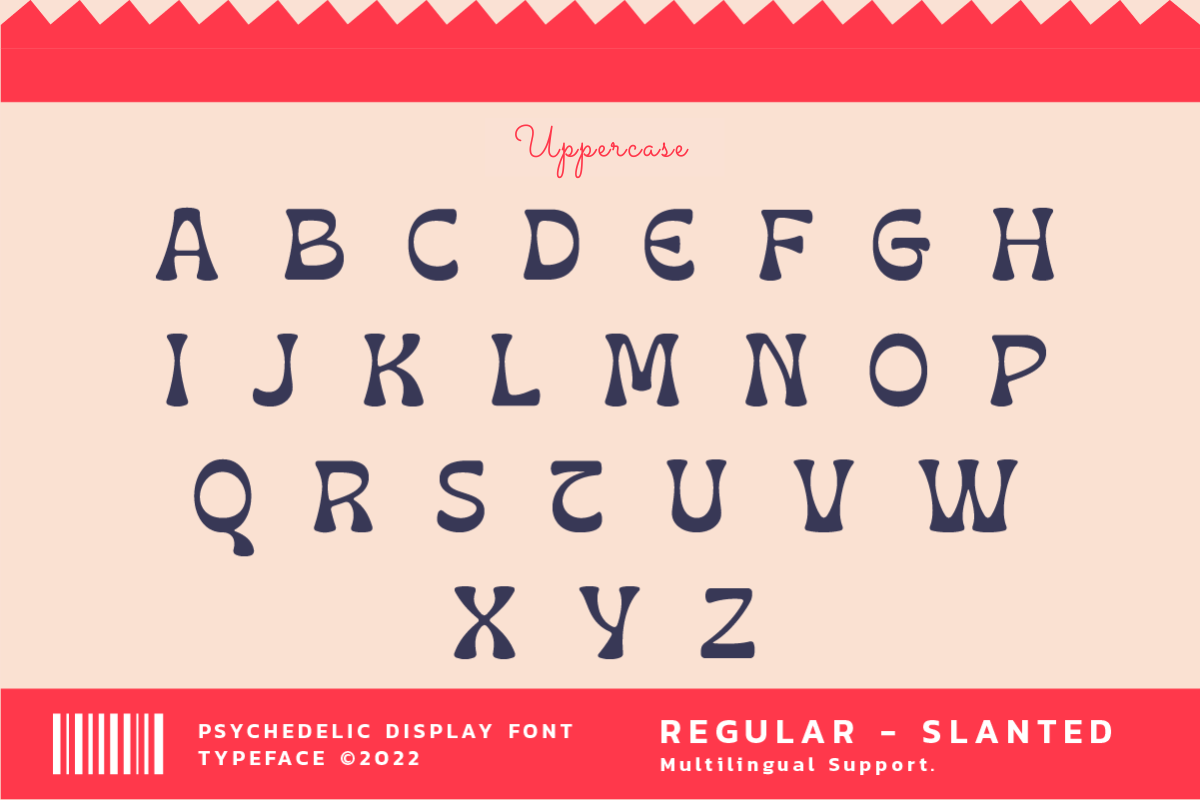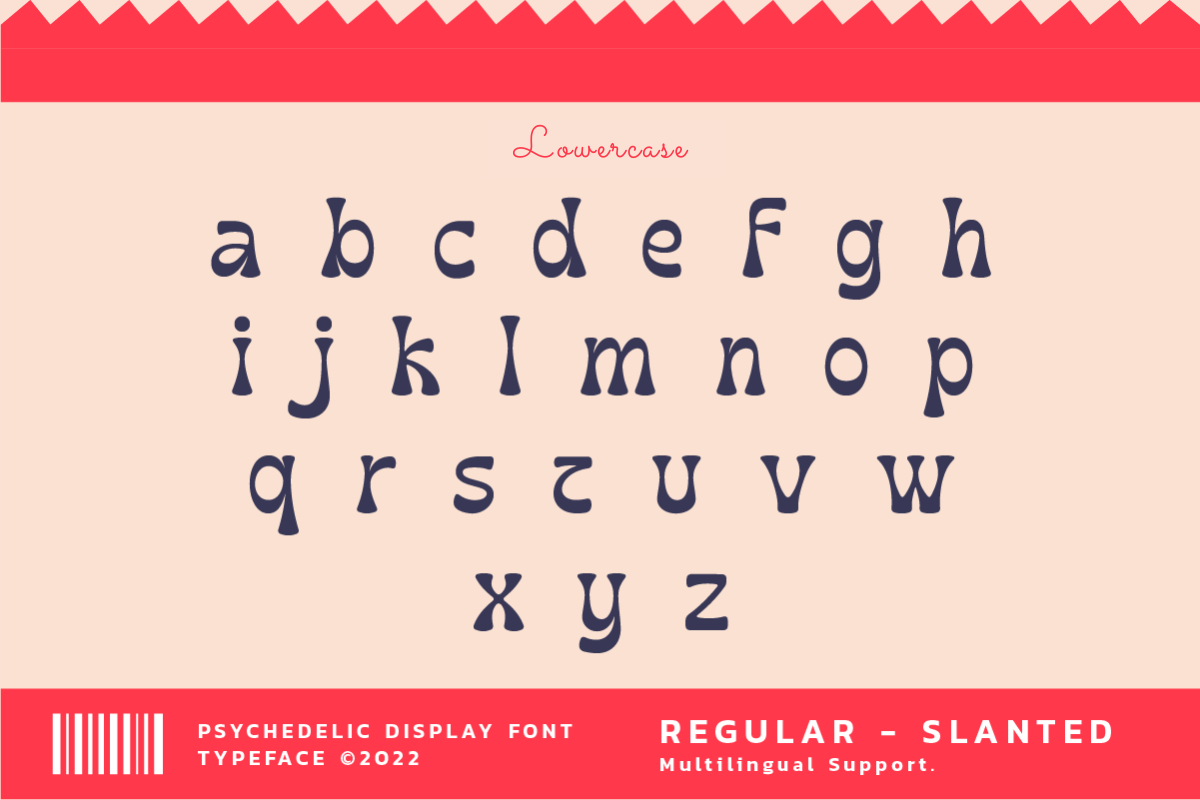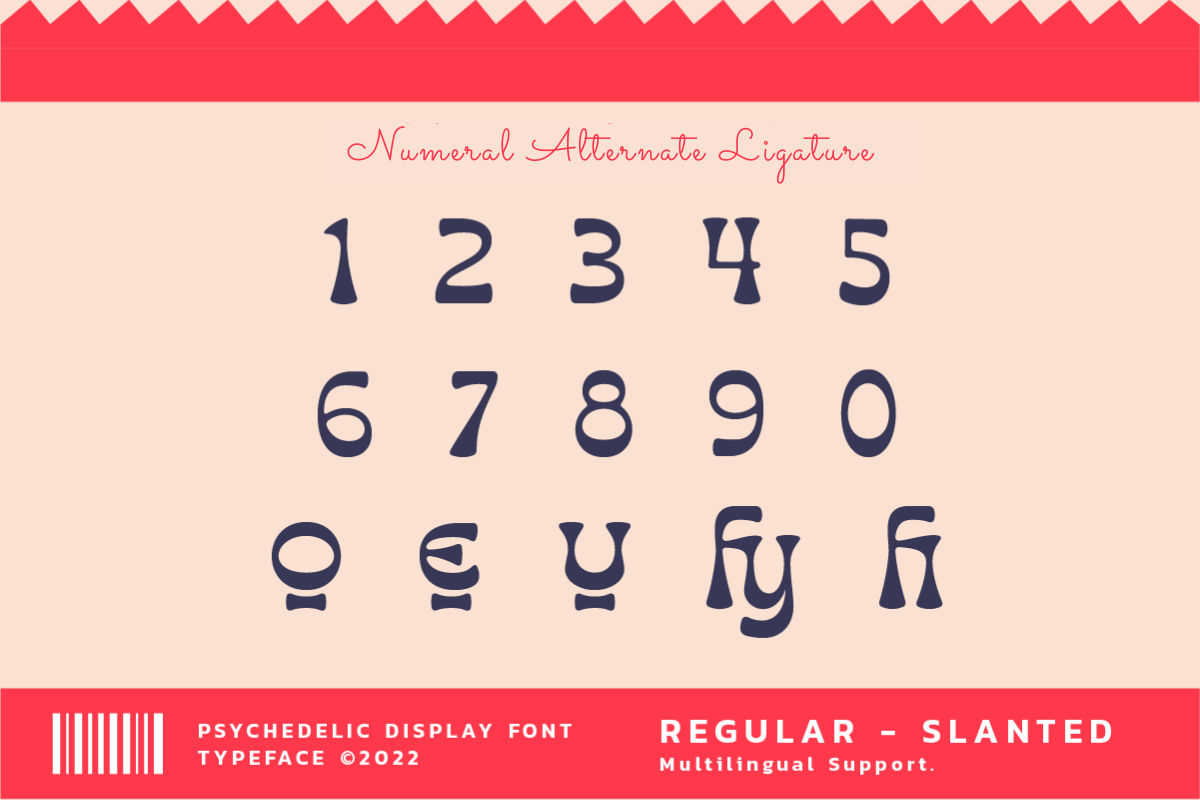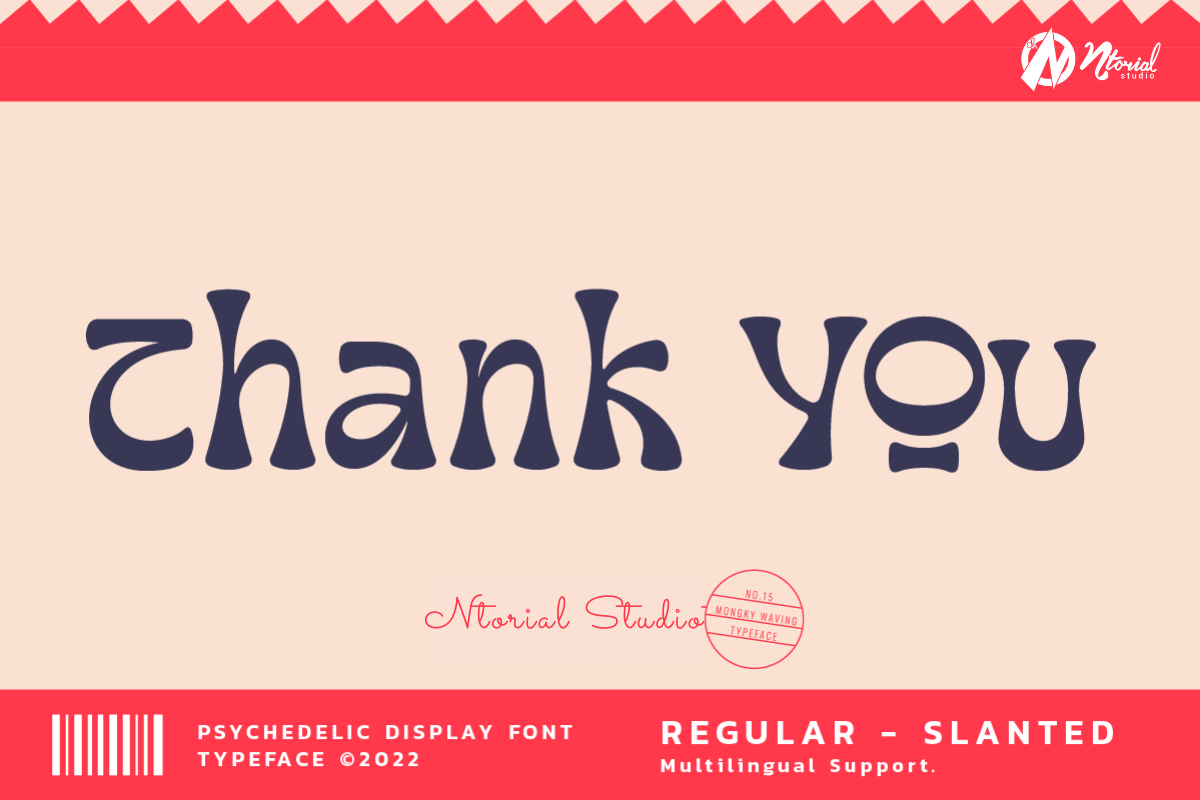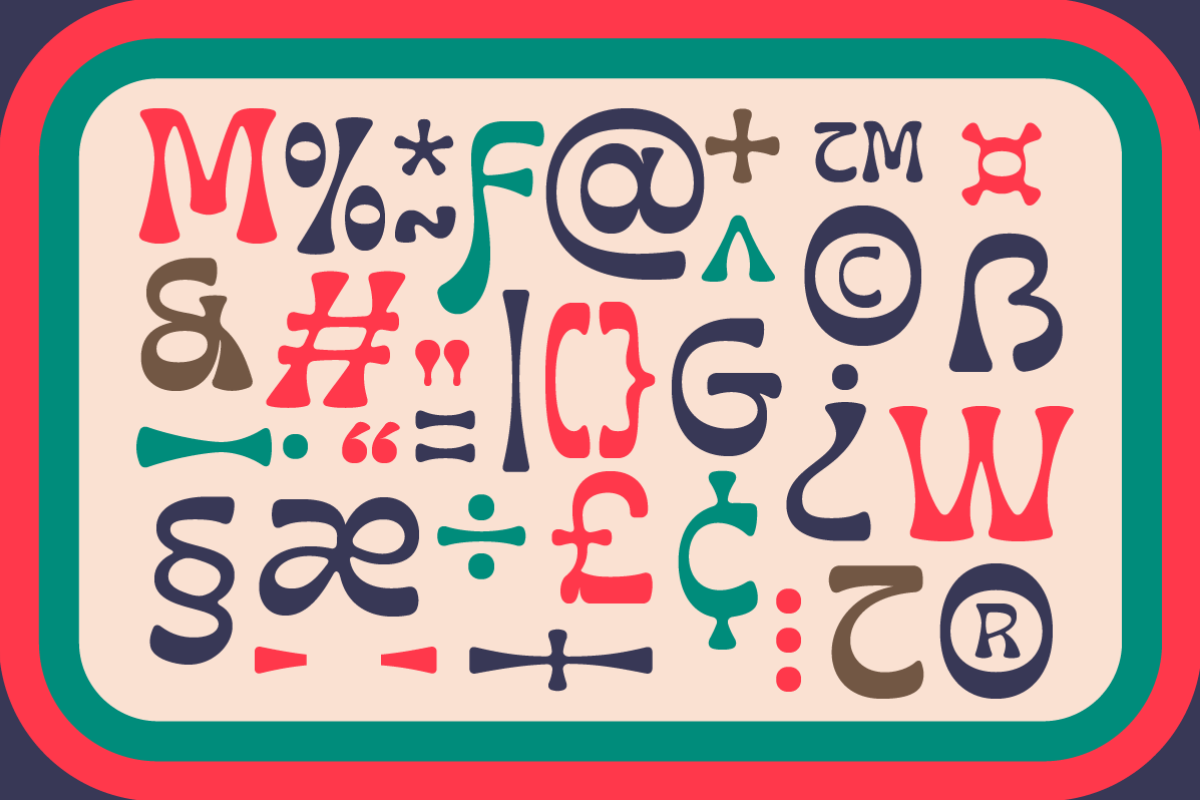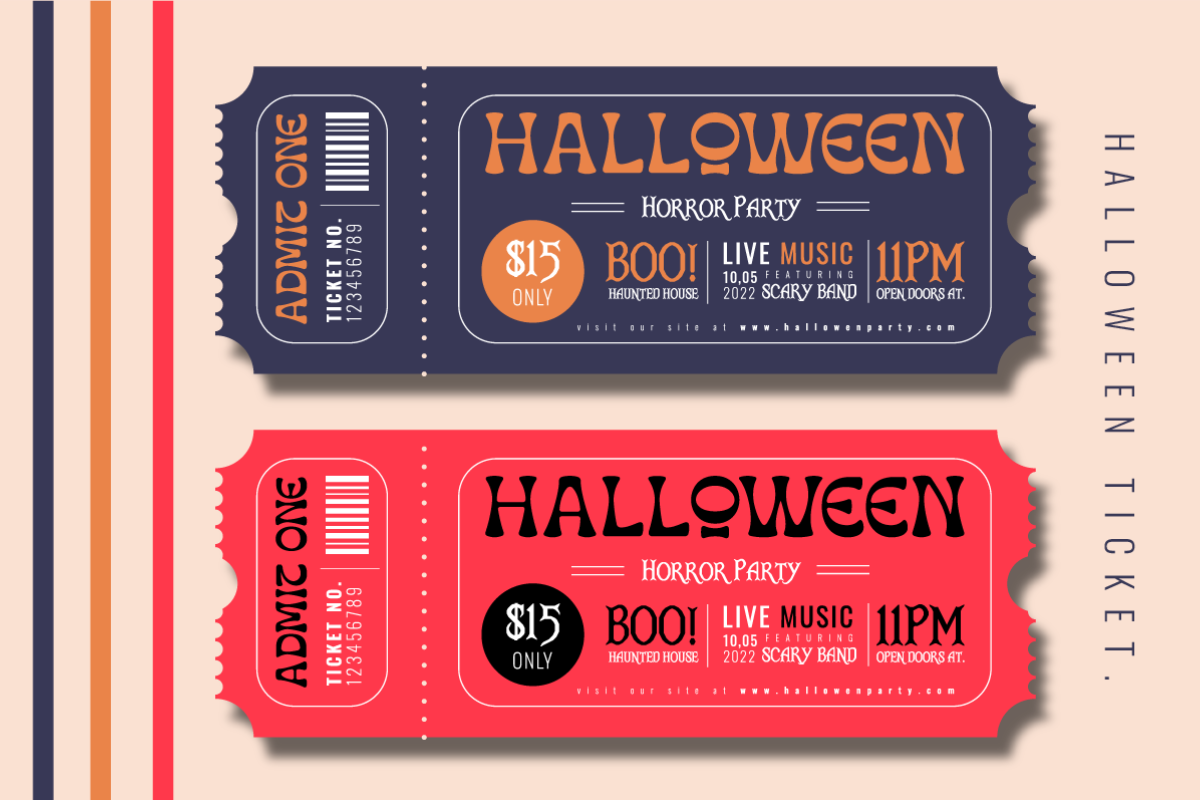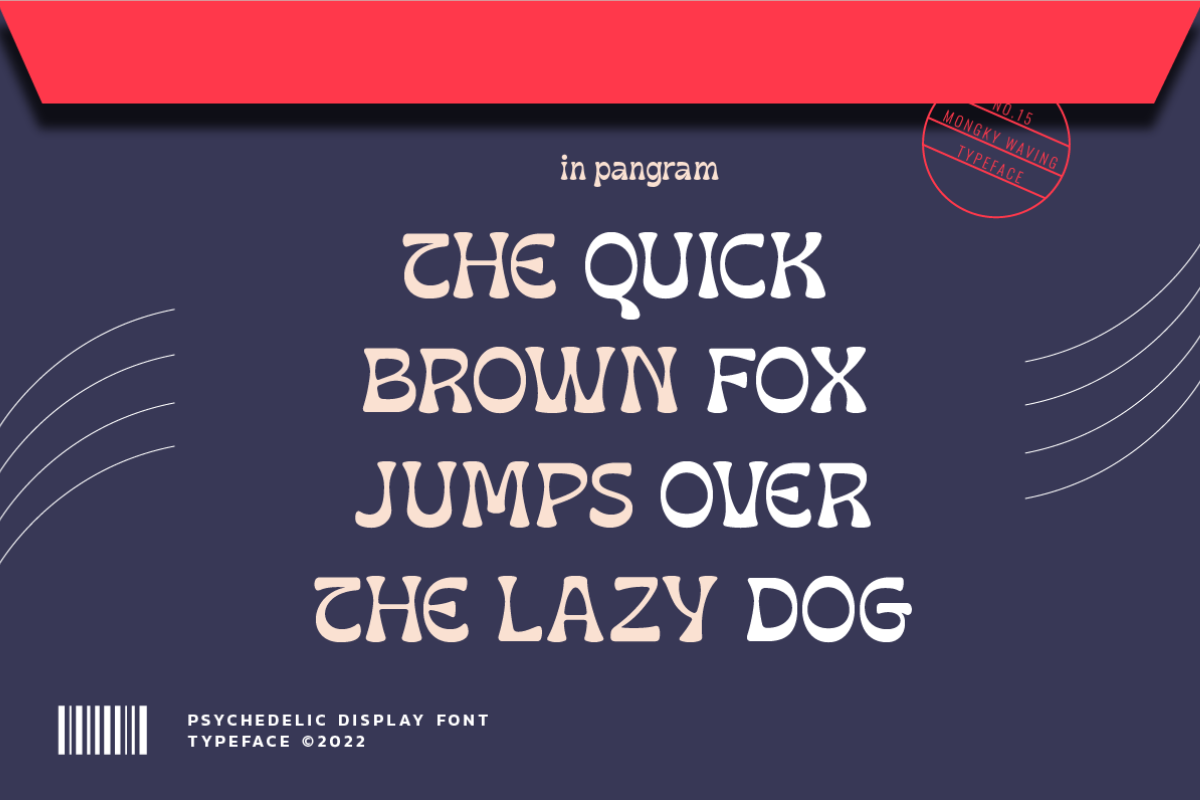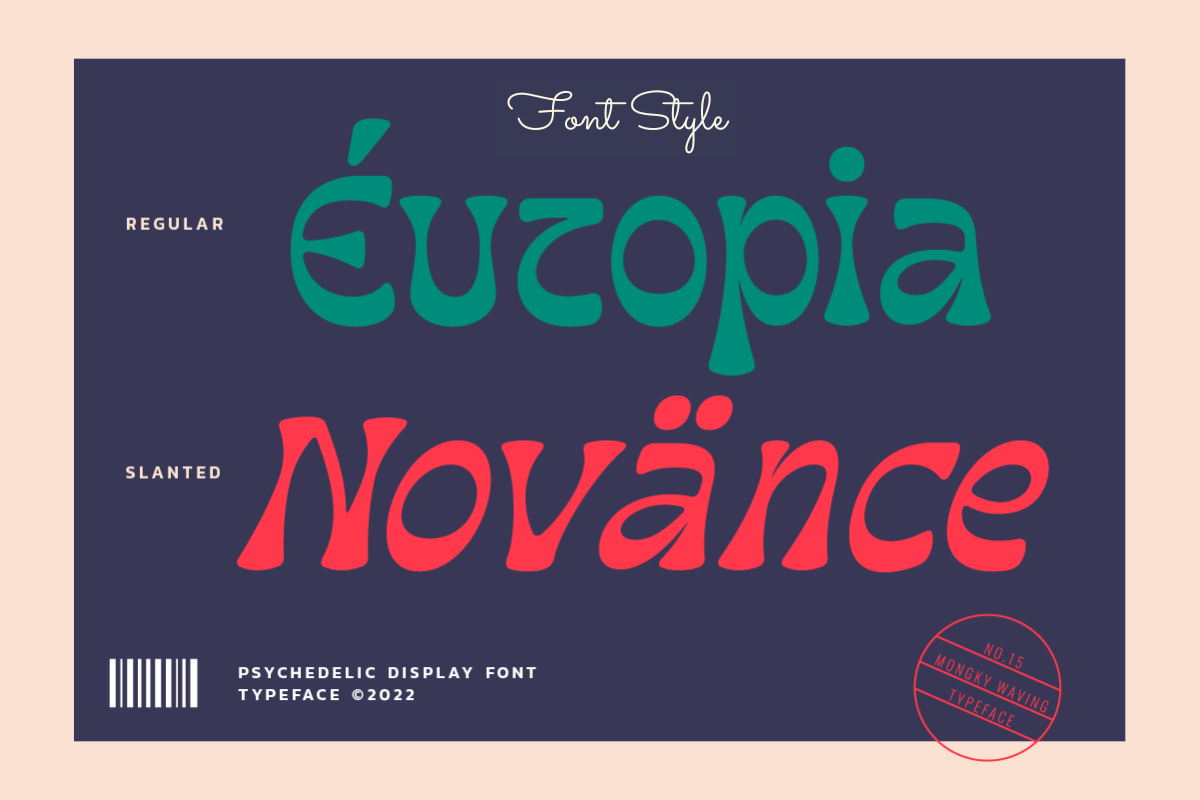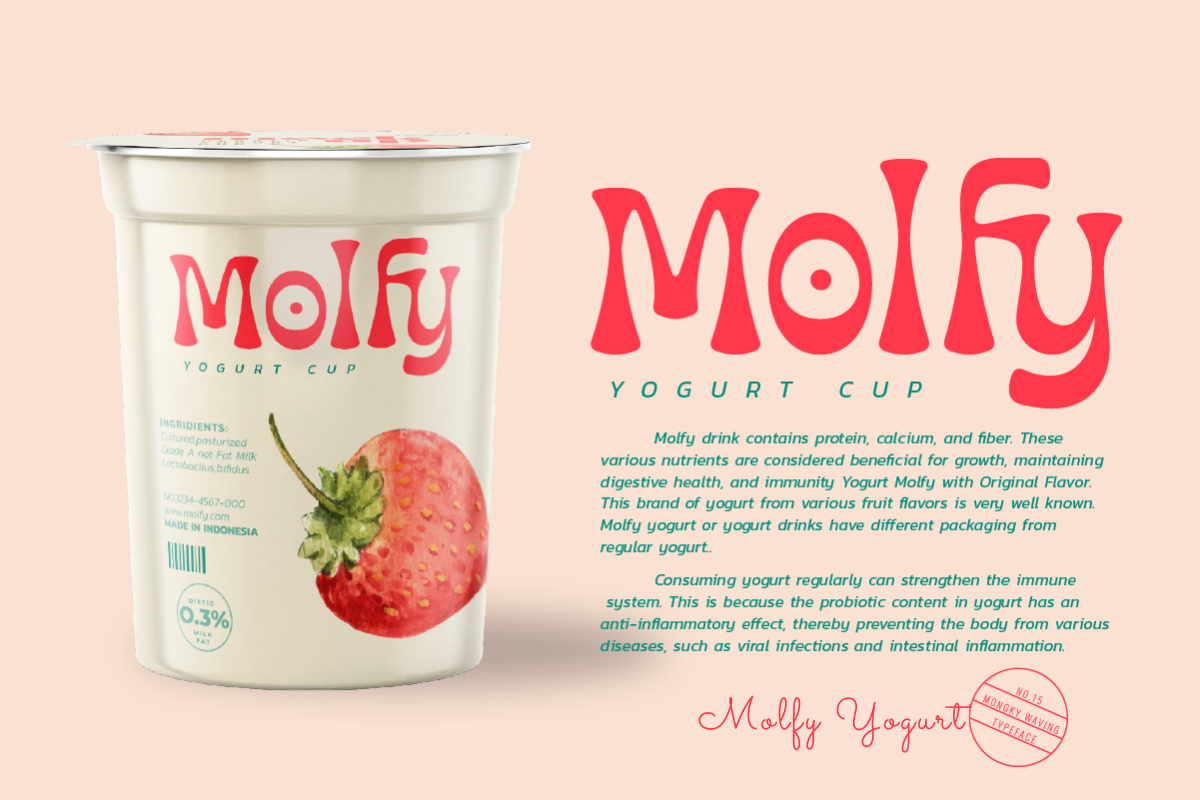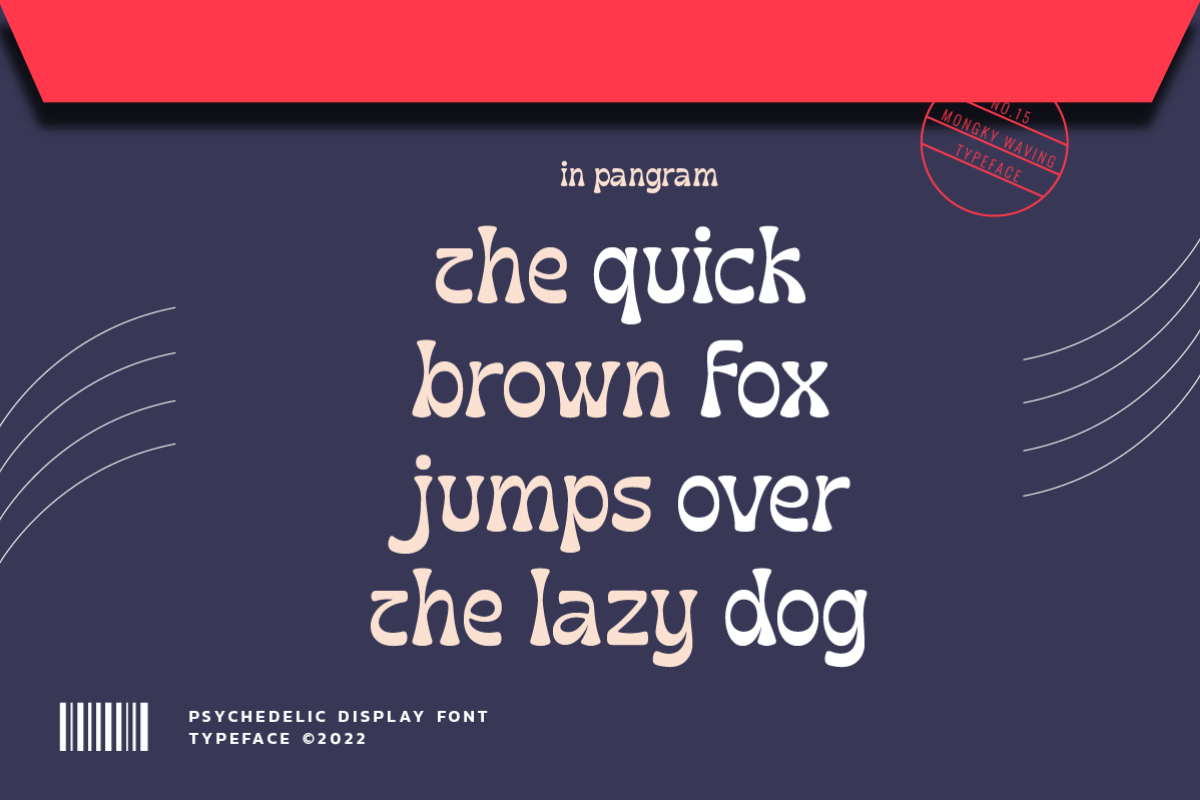
Introducing Mongky Waving: A Mesmerizing Psychedelic Display Font
Transport your designs into a realm of captivating psychedelia with Mongky Waving, an enchanting display font designed to infuse your projects with an electrifying vibe. Its hypnotic swirls and dynamic strokes command attention, lending an otherworldly charm to your visual compositions.
Mongky Waving stands out for its dual versions - the regular and slant - offering you the freedom to experiment and create designs that oscillate between structured sophistication and whimsical flair. This font is a celebration of creativity, enabling you to craft designs that transcend boundaries and ignite the imagination.
Discover the key features of Mongky Waving:
Dynamic Uppercase and Lowercase Letters:Mongky Waving presents a dynamic interplay of uppercase and lowercase letters, allowing you to effortlessly blend and juxtapose characters for spellbinding typographic arrangements.
Numeric and Symbolic Elegance: From sleek numerals to an array of symbols, Mongky Waving maintains coherence and visual allure across your designs, ensuring a seamless and harmonious visual experience.
Global Expression through Multilingual Support: Embrace cultural diversity and global expression effortlessly with Mongky Waving's extensive multilingual support. Seamlessly integrate diverse languages into your projects while preserving the font's captivating aesthetic.
Whether you're crafting eye-catching posters, rebelliously chic merchandise, album covers that pulse with energy, or any creative endeavor that craves a psychedelic touch, Mongky Waving stands ready to be your artistic companion, injecting an element of mesmerizing uniqueness into your designs.